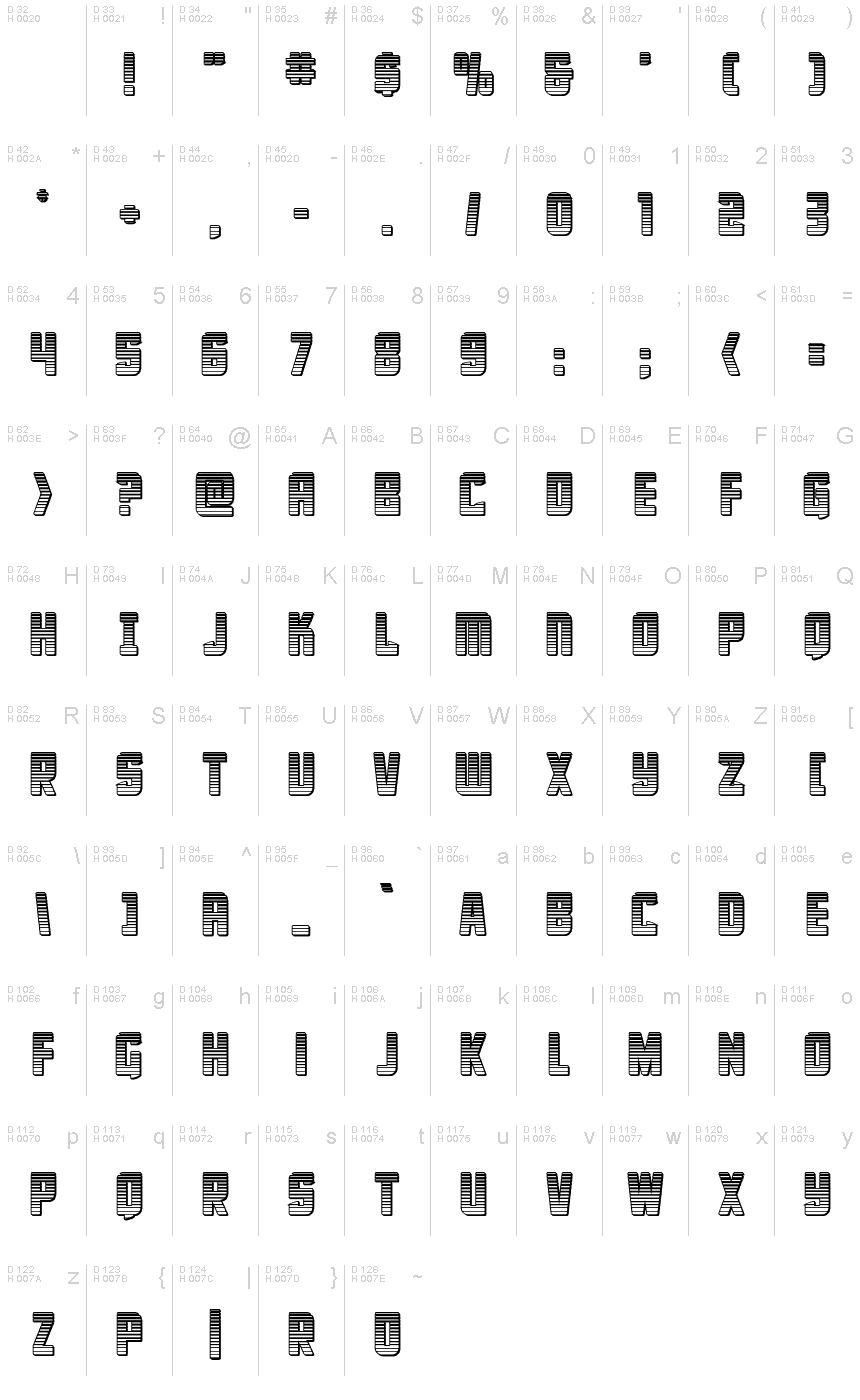
Phantom Storm Chrome
Phantom Storm Chrome is a striking display font from the renowned Iconian Fonts. Its bold, techno style and extra-condensed width make it perfect for projects that require an edgy, futuristic look. Use this font to add a touch of sophistication to your branding, web design or print projects. The chrome style adds a metallic sheen that will give your text an eye-catching 3D effect. Great for posters, album covers, game titles and more – Phantom Storm Chrome is sure to make your message stand out with its unique blend of form and function.